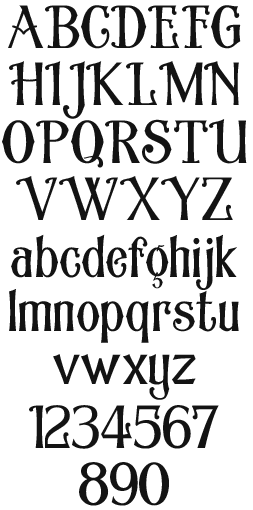
LHF Mackinlay Inspired by an old glass sign John received from Rick Glawson's collection. Authentic late 1800's style perfect for replicating period designs.